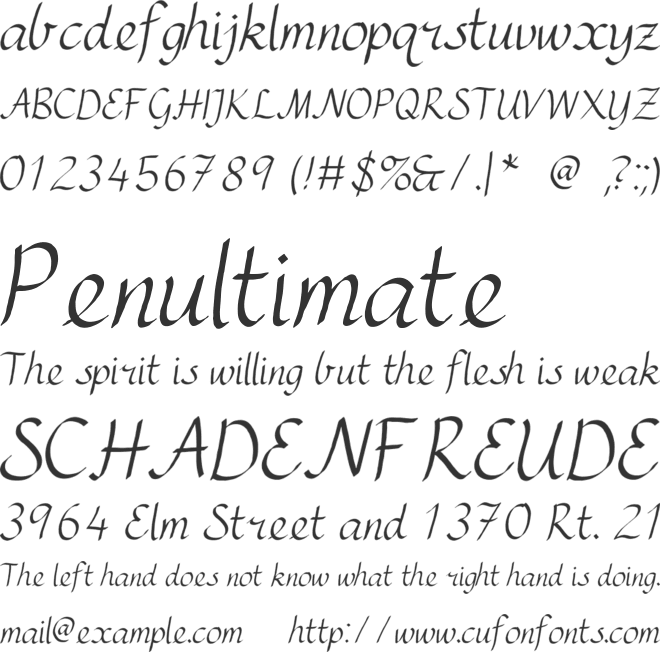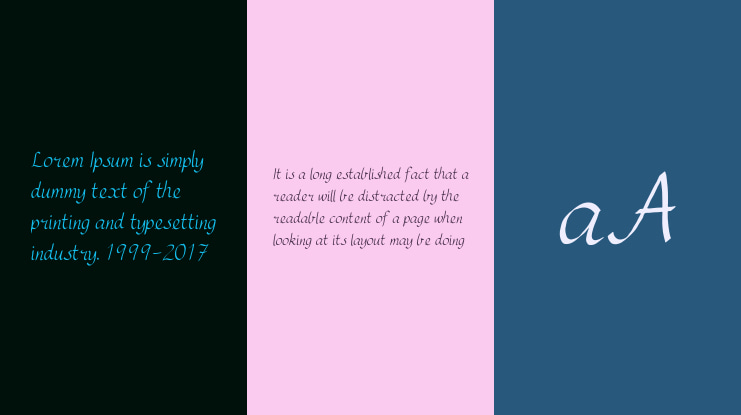
Caligrafia Font
Caligrafia is a font based off of some classic script fonts. The font was hand-drawn by me and I tweaked it a little bit. The style is based off of cursive and precursive. Supports Latin and Cyrillic.